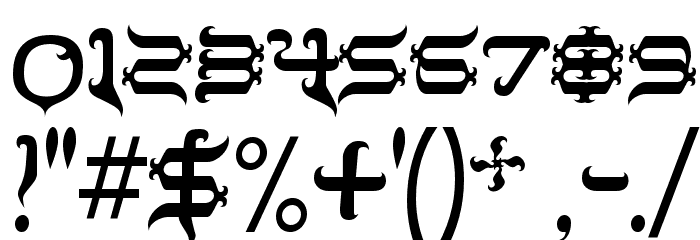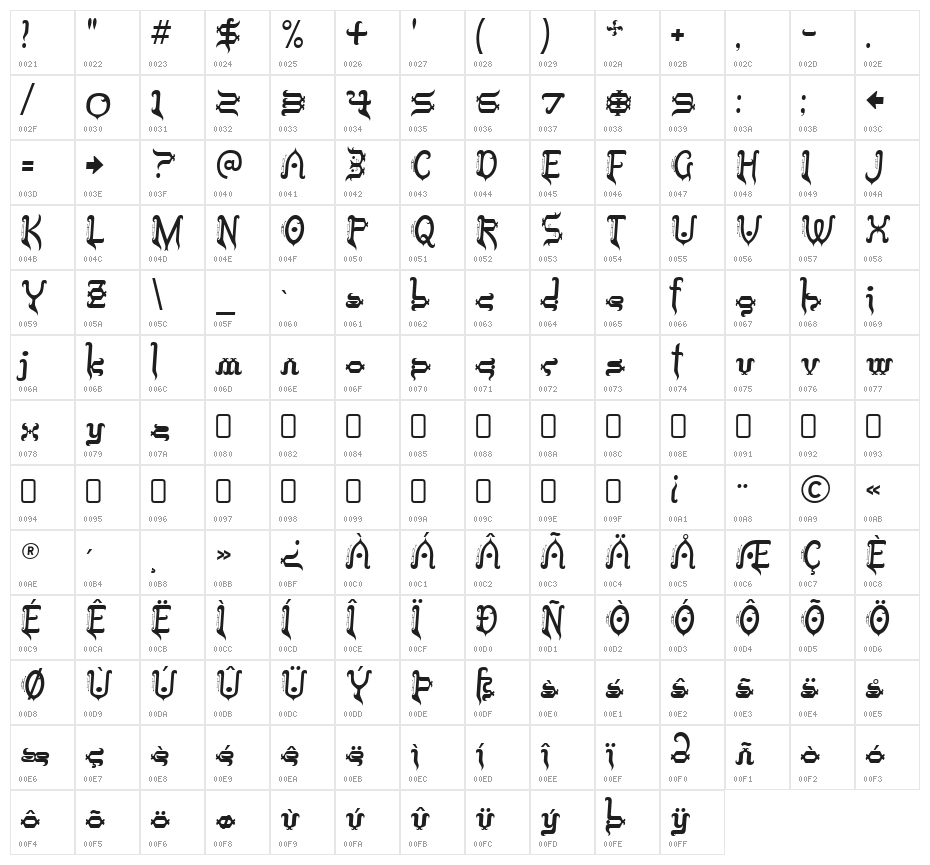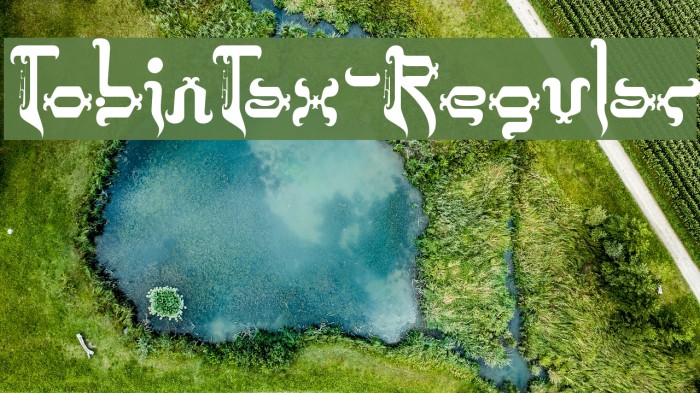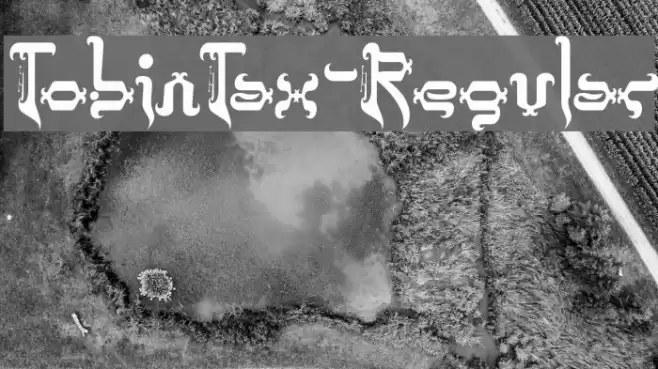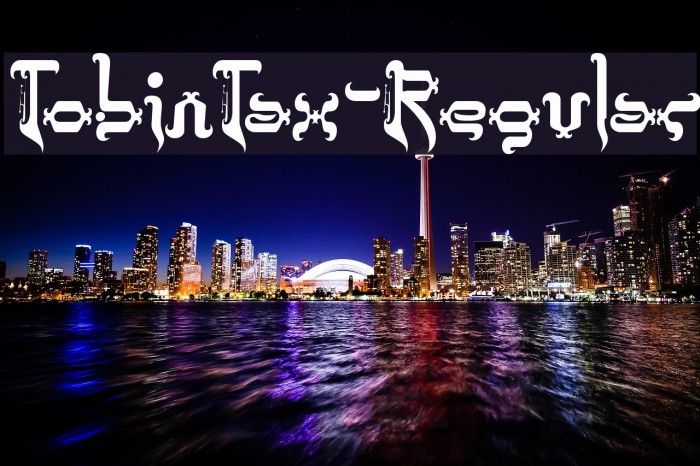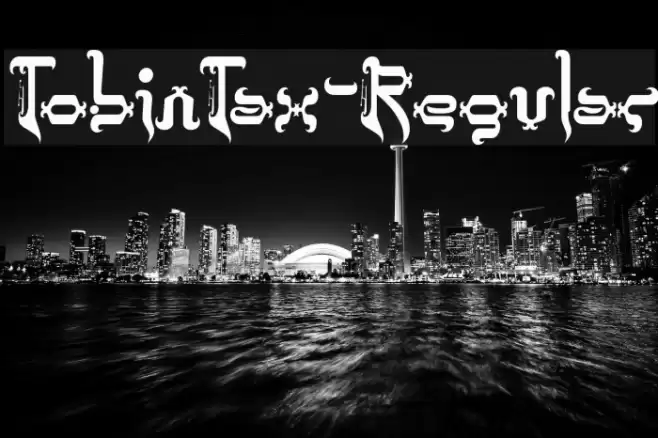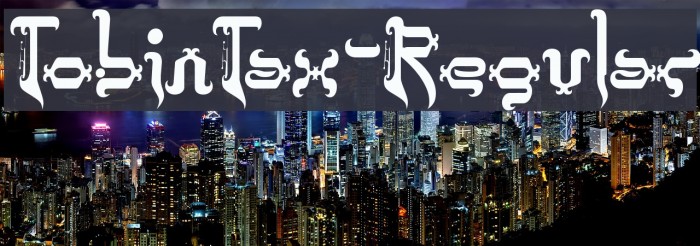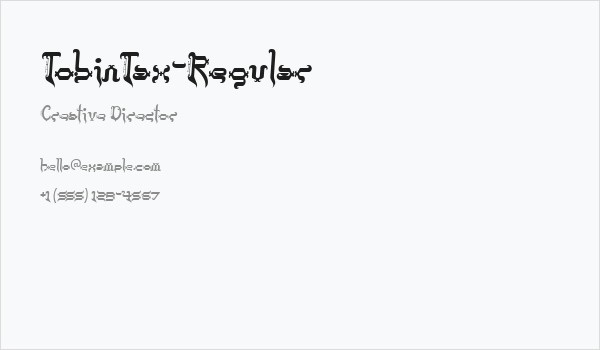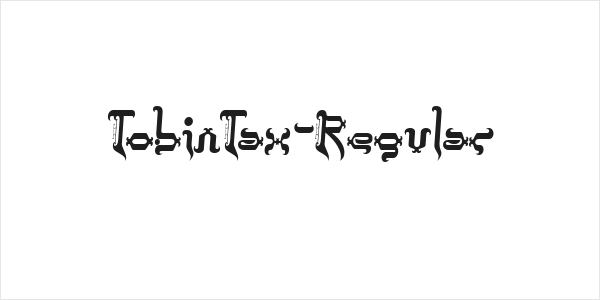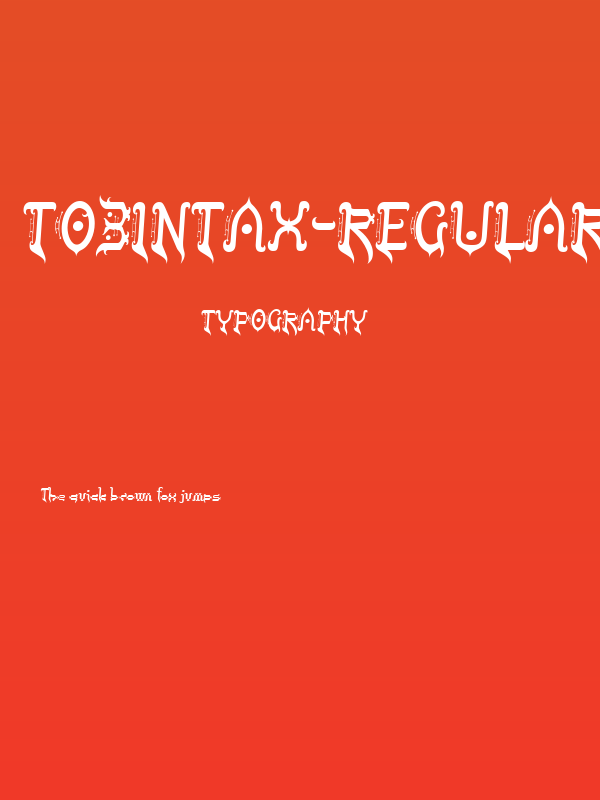
TobinTax-Regular Font
TobinTax-Regular Description
This font features a highly decorative and intricate design, characterized by its bold and dramatic strokes. The letters are adorned with unique, ornamental elements that give it a gothic and medieval flair. The uppercase letters are particularly striking, with elaborate curves and sharp edges that create a sense of movement and energy. The lowercase letters maintain the same level of detail, ensuring consistency throughout the typeface. The numerals and special characters are equally ornate, making this font ideal for projects that require a strong visual impact.
| Proposed Projects | Ideal for use in fantasy-themed designs, book covers, posters, and branding that requires a dramatic and eye-catching typeface. |